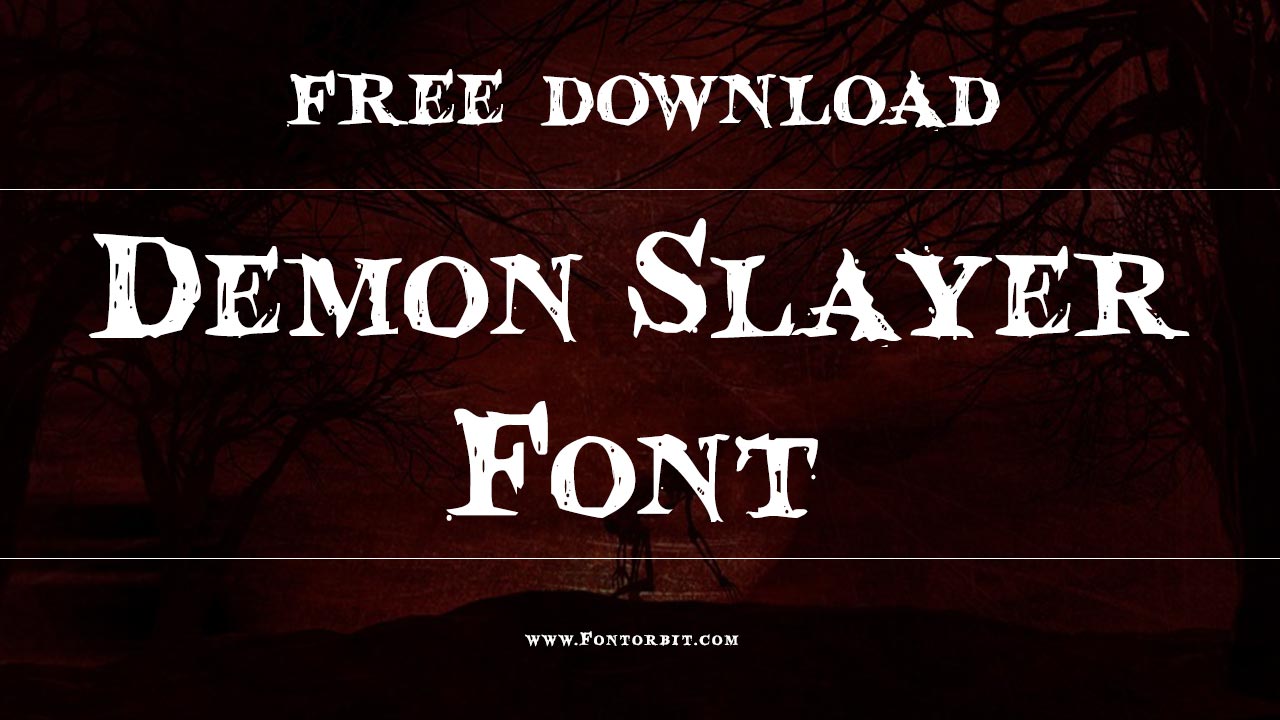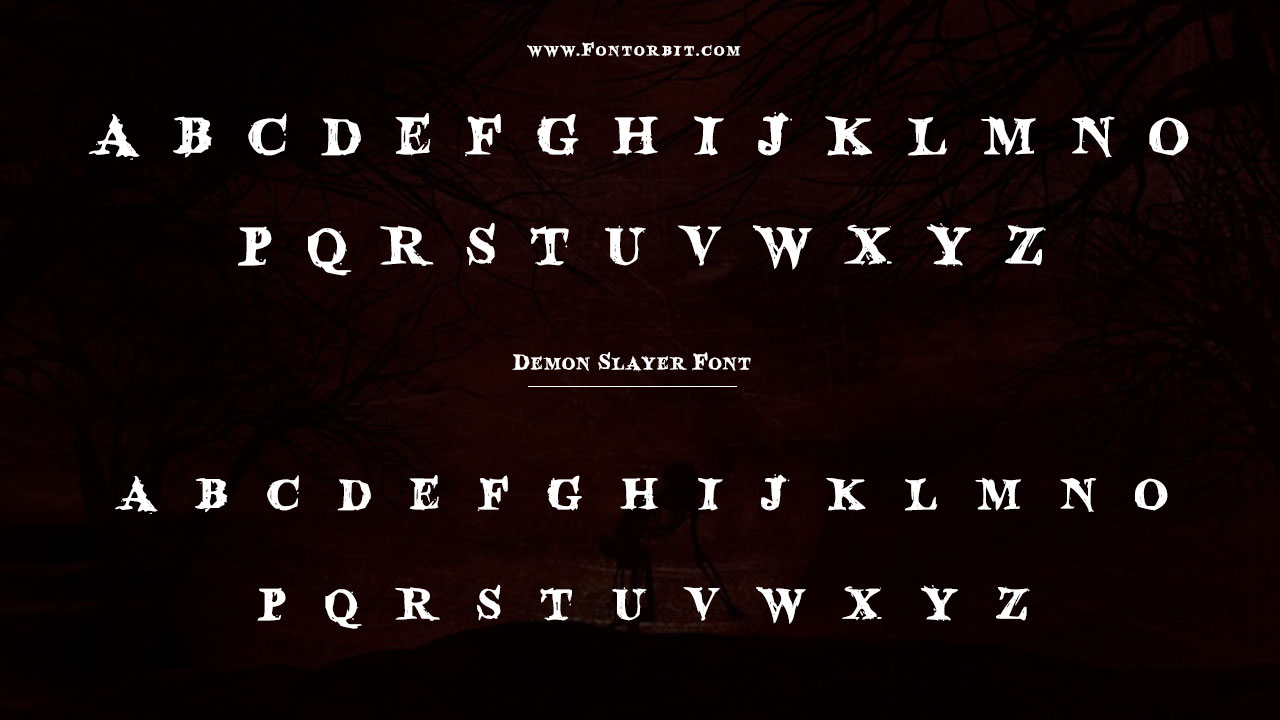
The Demon Slayer Font, inspired by the anime “Demon Slayer: Kimetsu no Yaiba,” plays a crucial role in the identity of the franchise. The logo primarily uses the Blood Crow Condensed typeface by Daniel Zadorozny of Iconian Fonts. This bold and dramatic typeface captures the essence of the anime’s dark fantasy theme. Blood Crow is free for personal use and offers a versatile range of styles.
Types In The Demon Slayer Font Family
The Blood Crow Font Family Includes 11 Unique Styles:
- Regular
- Italic
- Condensed
- Condensed Italic
- Expanded
- Expanded Italic
- Shadow
- Shadow Italic
- Shadow Condensed
- Shadow Condensed Italic
- Leftalic
These styles allow for flexibility in creating diverse designs, from bold headings to artistic logo adaptations.
Using Occasions Of The Demon Slayer Font
The Demon Slayer font is ideal for:
- Anime and Manga Branding: Logos, posters, and merchandise.
- Promotional Materials: For movie or event advertising.
- Graphic Design: Eye-catching banners, infographics, and digital art.
- Themed Projects: Perfect for fan art, cosplay materials, and themed party invitations.
- Merchandise: T-shirts, mugs, and collectibles.
Its dramatic style makes it perfect for any project that needs a strong, bold design with a touch of fantasy.
The Demon Slayer Font, primarily using the Blood Crow Condensed typeface, offers an iconic and dramatic design perfect for anime branding, merchandise, and creative projects. Free for personal use, this typeface includes 11 versatile styles to fit any project. Whether you’re working on manga art, fan posters, or themed graphics, the Demon Slayer font family captures the bold, dark aesthetic of the series.
1. What Is The Demon Slayer Font, And How Is It Connected To The Anime?
The Demon Slayer Font is inspired by the iconic demon slayer logo used in the anime Kimetsu no Yaiba. The primary typeface is Blood Crow Condensed, designed by Daniel Zadorozny from Iconian Fonts. Its bold and dramatic style reflects the dark fantasy and action-packed themes of the series.
2. Who Is Daniel Zadorozny, And What Is The Significance Of His Work?
Daniel Zadorozny is a renowned font designer known for creating the Blood Crow font, which is prominently used in anime and movie fonts. His fonts are widely appreciated for their unique styles, making them popular in horror, custom font, and game font designs.
3. What Are The Key Features Of The Demon Slayer Font Family?
The demon slayer font family, Blood Crow, offers:
- 11 styles, including shadow condensed italic, shadow italic, and expanded.
- A bold sans-serif typeface perfect for posters, banners, and tattoos.
- Versatile use in projects such as anime-inspired branding and manga graphics.
4. Where Can I Use The Demon Slayer Font?
The Demon Slayer font is ideal for:
- Anime and manga designs related to Kimetsu no Yaiba.
- Creating logos, game fonts, and custom fonts for themed branding.
- Designing posters, banners, or music fonts for promotional materials.
- Incorporating into text boxes, calligraphy, or symbols for creative artwork.